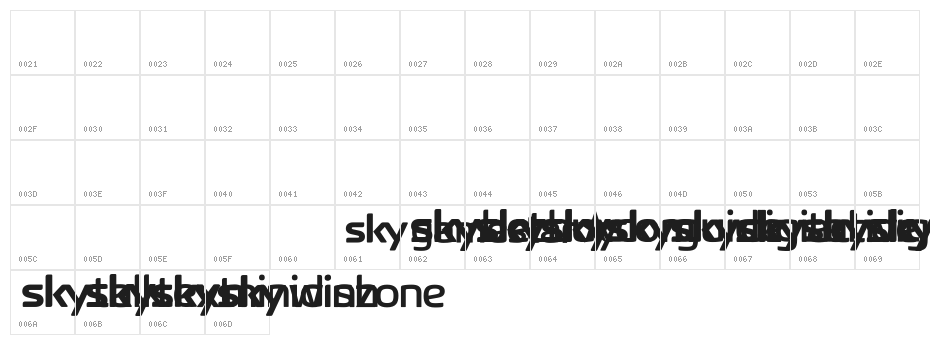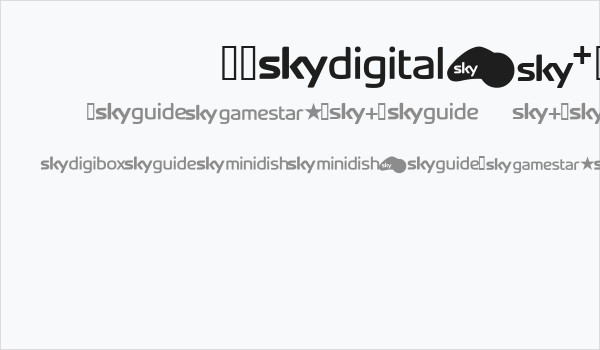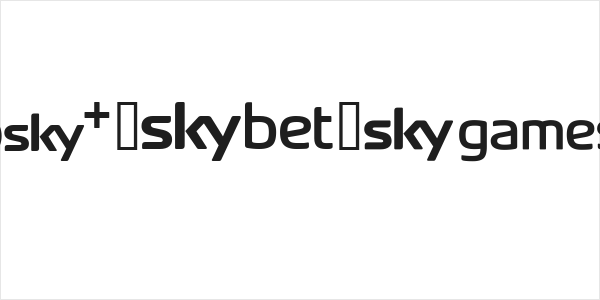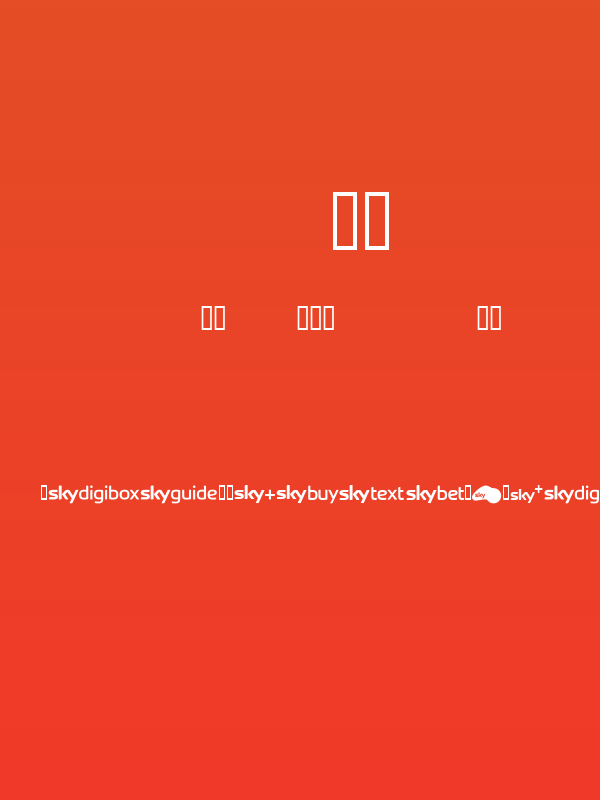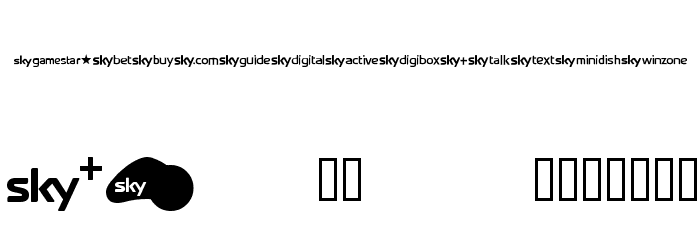
SKYfontbrands Font
SKYfontbrands Description
This font features a clean and modern sans-serif style, characterized by its geometric shapes and uniform stroke width. The letters are well-balanced, with a slight emphasis on horizontal lines, giving it a stable and grounded appearance. The uppercase letters are bold and impactful, while the lowercase letters maintain a consistent and harmonious flow. The numerals are clear and easily distinguishable, making them suitable for various applications. Special characters are designed to complement the overall aesthetic, ensuring a cohesive look across different uses.